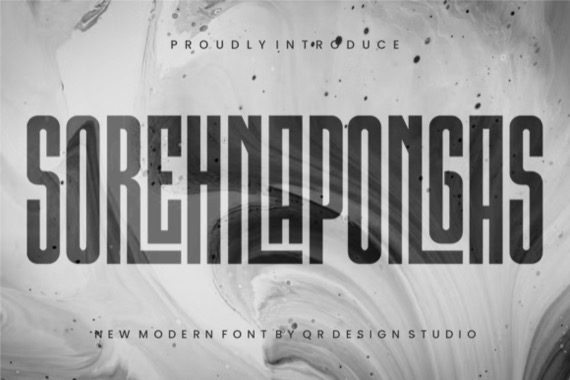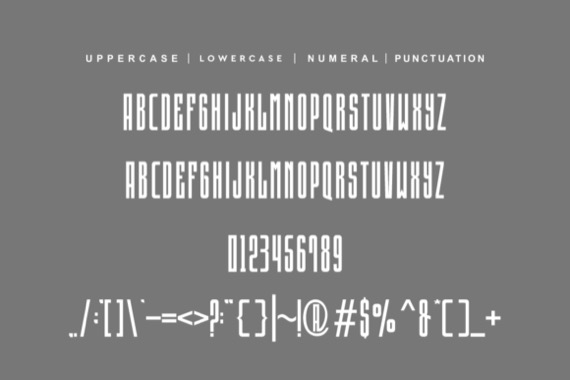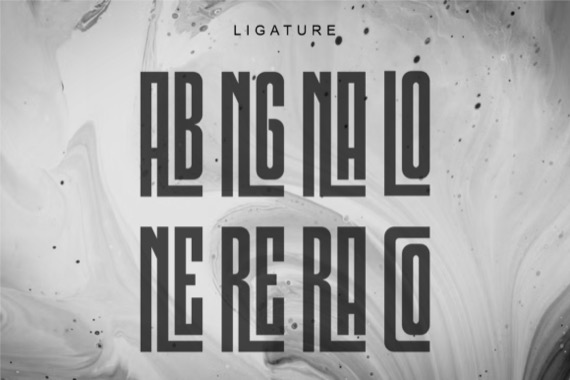
Sorehnapongas is a bold and authentic display sans serif font that was created and published by Qrdesignstd. The font is suitable for any branding project like logo, sport, and many more. Outstanding in a wide range of contexts.
Sorehnapongas Sans Serif Font